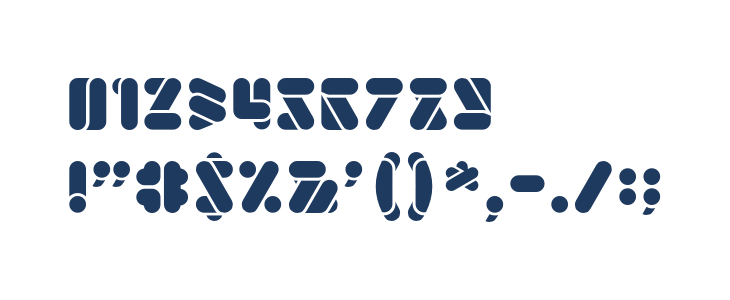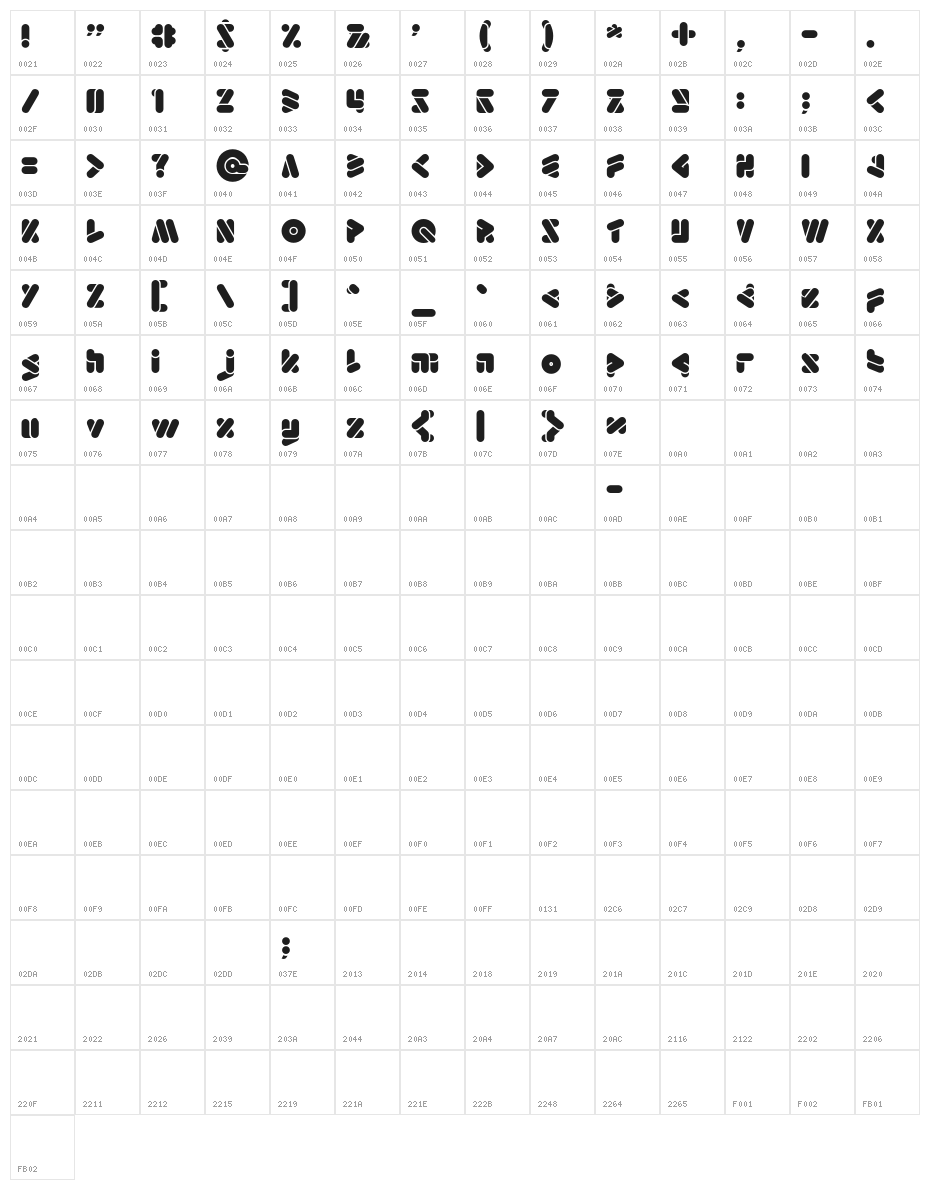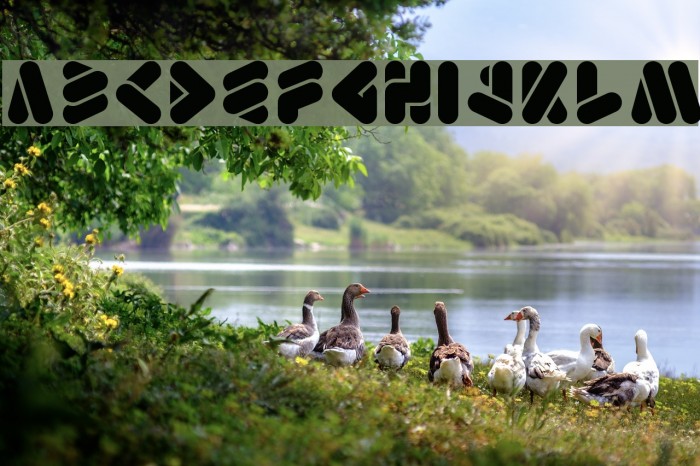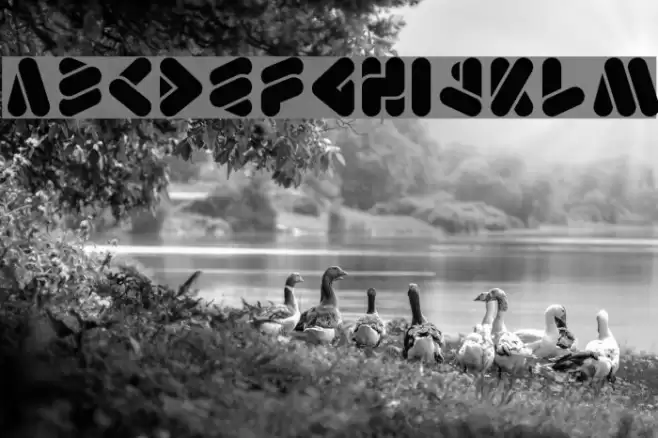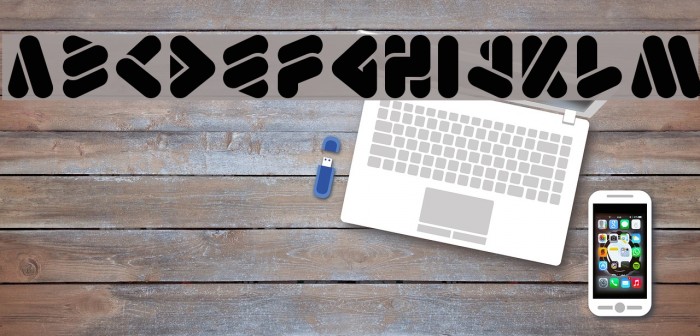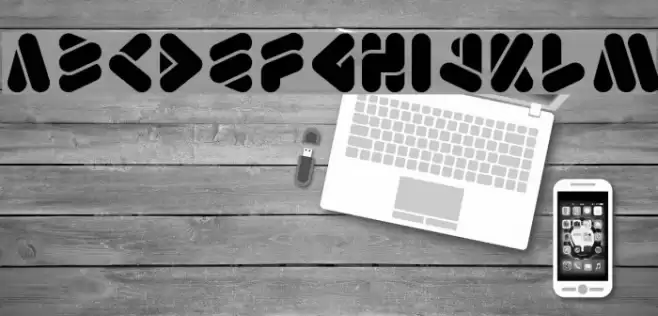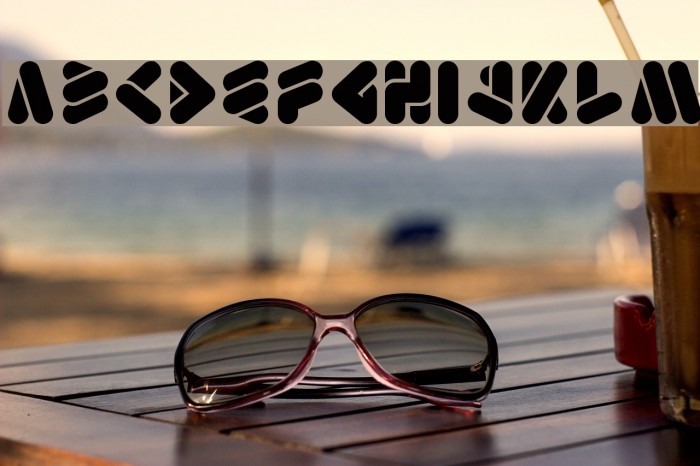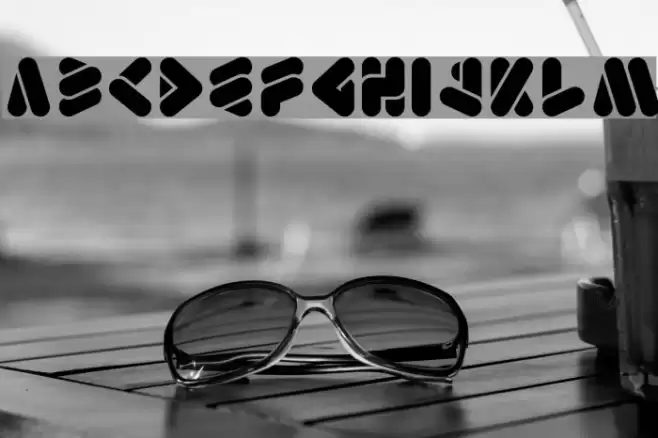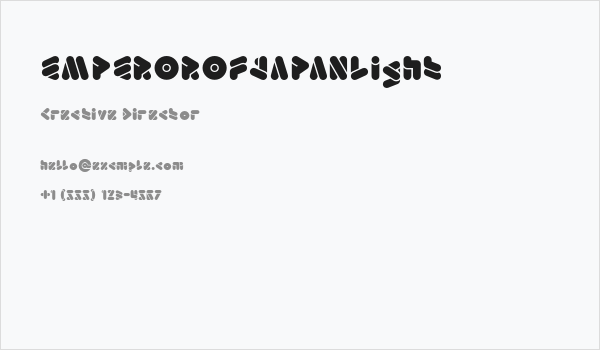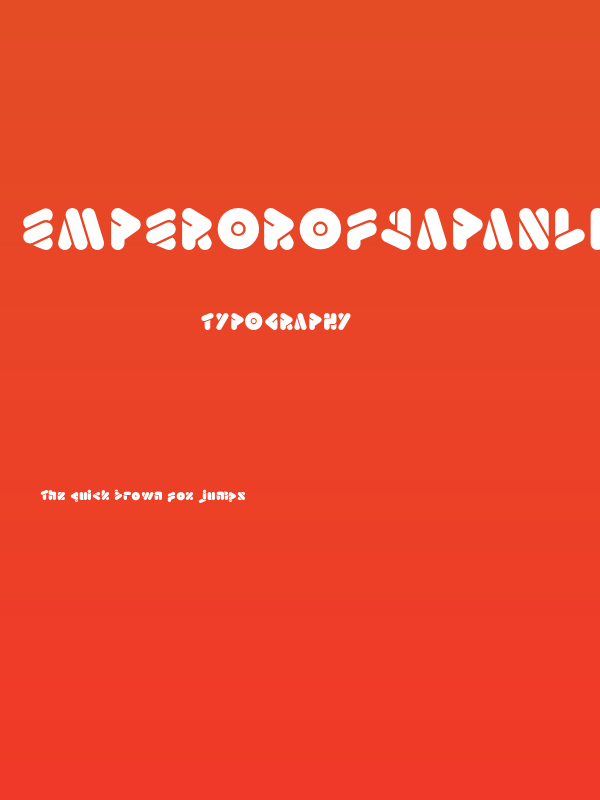
EMPEROROFJAPANLight Font
EMPEROROFJAPANLight Description
This font features a bold and geometric design with a futuristic aesthetic. Each character is composed of thick, rounded shapes that create a sense of solidity and modernity. The letters are constructed with a combination of straight lines and curves, giving them a unique and dynamic appearance. The font's style is highly decorative, making it stand out in any design. Its boldness and distinctive form make it suitable for attention-grabbing headlines and creative projects. The overall look is both playful and sophisticated, ideal for projects that require a modern and innovative touch.
| Proposed Projects | Ideal for futuristic branding, creative posters, modern logos, and eye-catching headlines. |